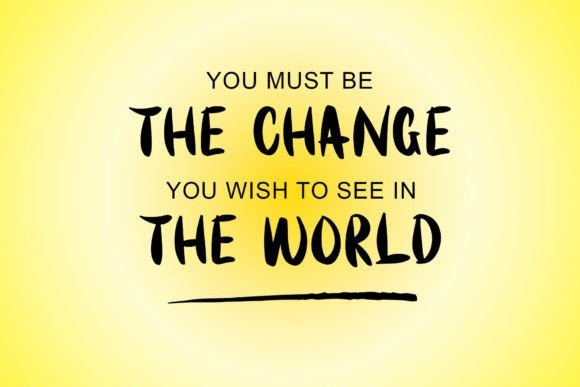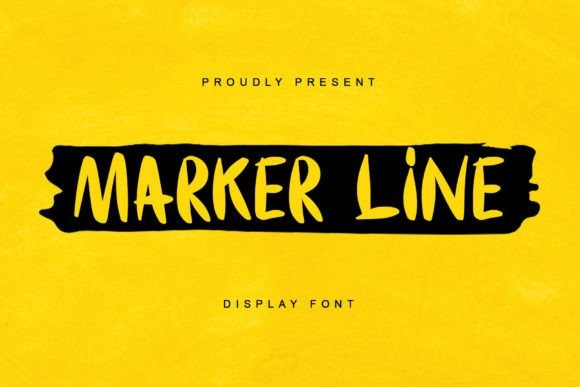
Marker Line Font
Marker Line Font is a dynamic display font that captures the essence of casual, playful handwriting. Its thick strokes resemble marker pen strokes, adding a fun and modern touch to any design. This font is perfect for bold headlines, posters, and branding materials that aim to stand out with a youthful and vibrant appeal.